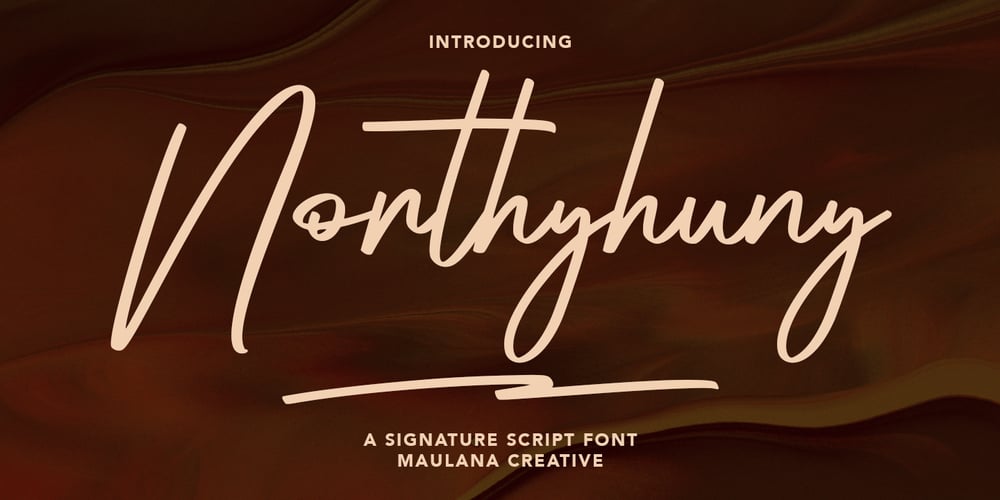
Northyhuny Font Family was designed by Gilang Maulana and published by Maulana Creative. Northyhuny contains 3 styles and family package options. Northyhuny is a casual signature script font. With clean sharp stroke and fun character. It has Opentype features of ligatures and lowercase to give you an extra creative work. Northyhuny signature script font support multilingual more than 100+ language. This font is good for logo design, Social media, Movie Titles, Books Titles, a short text even a long text letter and good for your secondary text font with sans or serif. Make a stunning work with Northyhuny signature font. Cheers, MaulanaCreative